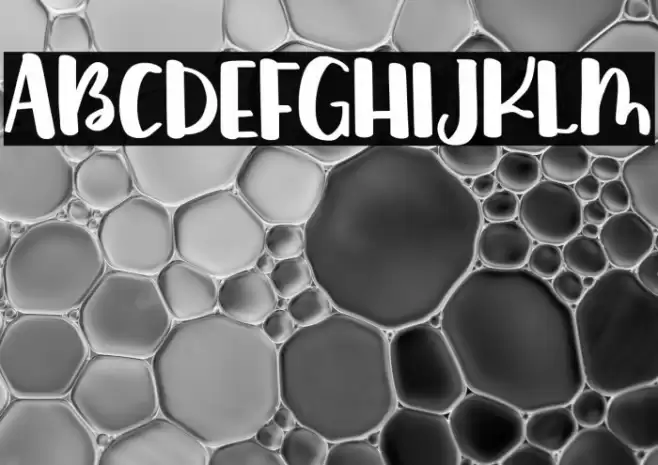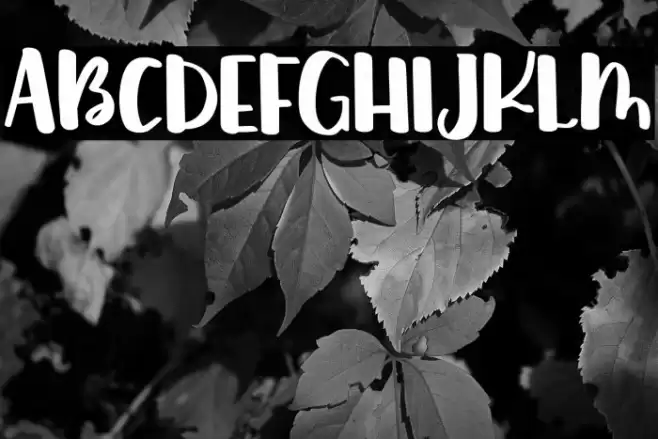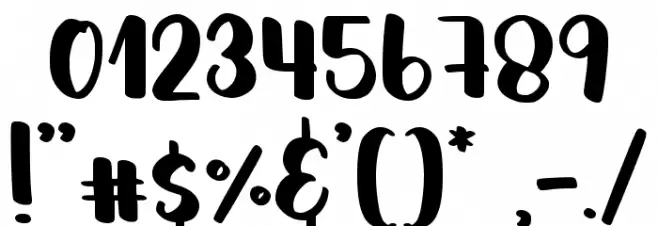
fostella demo Font
fostella demo Description
This font features a bold and playful handwritten style with a modern twist. The characters are thick and rounded, giving a friendly and approachable feel. The uppercase letters are slightly more structured, while the lowercase letters exhibit a more fluid and casual appearance. Numbers and special characters maintain the same boldness, ensuring consistency throughout. The overall design is dynamic, with varying stroke widths that add a sense of movement and energy. This font is ideal for projects that require a personal touch or a creative flair.
A bold, playful handwritten font with a modern and dynamic style from Uncategorized fonts.
- Proposed Projects: Ideal for greeting cards, playful branding, children's books, and social media graphics.
- Overall Style: Modern, Decorative